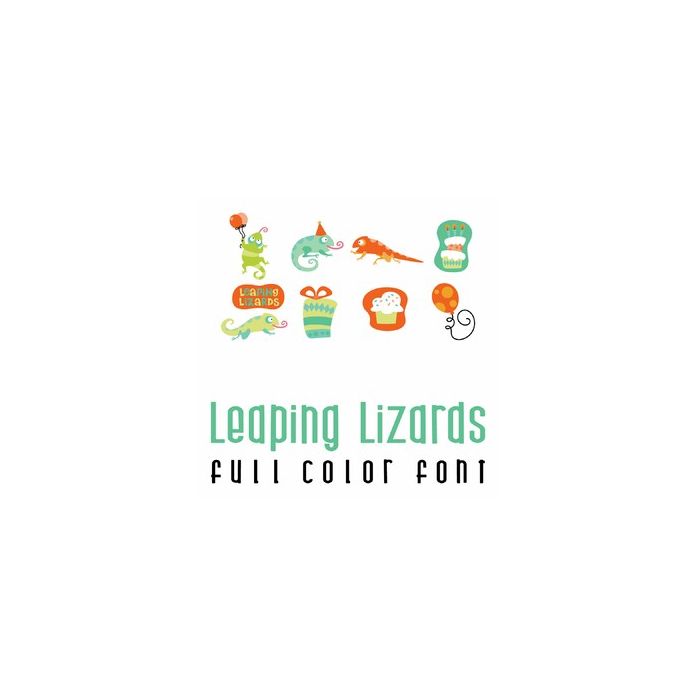
This adorable full-color doodlebat font 26 lizards ready to party. Perfect for cards, crafts, gifts, decor, scrapbook pages, planner stickers, and more!